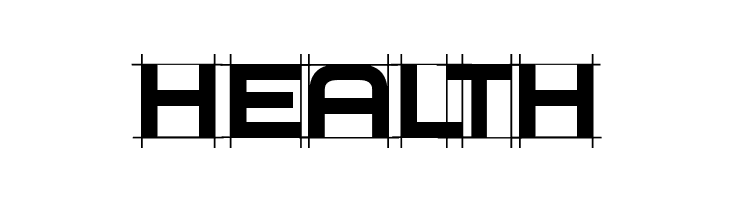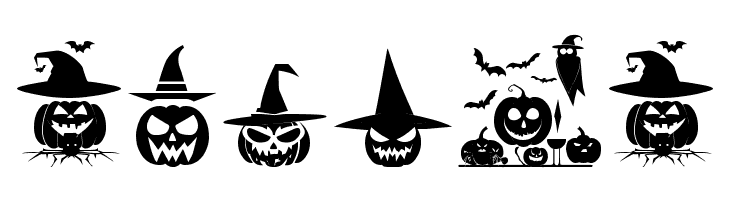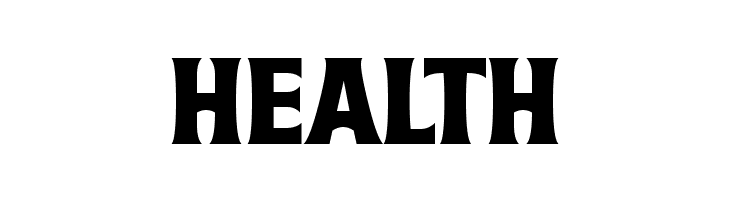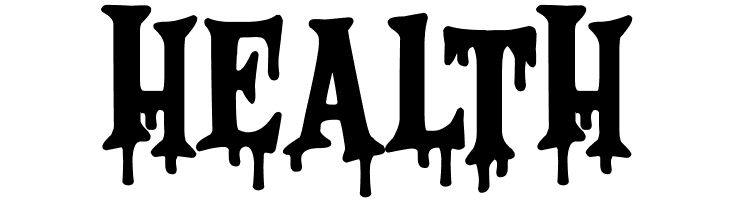
( Fonts by Kong Font )
A bold, playful font with bunny ears on each letter, perfect for whimsical designs.
( Fonts by Zeenesia Studio )
A bold, playful font with rounded and angular elements, perfect for creative designs.
( Fonts by Excellent Ritma Florendia )
A bold, playful font with rounded, bubbly characters.
A modern, geometric font with a structured, technical design.
( Fonts by Alpaprana Studio )
A bold, decorative font with characters encased in thorny wreaths.
( Fonts by Md Shohail Bhuian )
A bold, brush-style font with an energetic and artistic flair.
( Fonts by Southype )
A decorative font with Halloween-themed icons like pumpkins and witches.
( Fonts by Joseph Dawson )
A bold, gothic-inspired font with sharp, angular edges and high contrast.
( Fonts by imagex )
A bold, dripping font perfect for spooky or horror-themed designs.
( Fonts by Hawtpixel )
A bold, italic serif font with a gothic and dramatic flair.